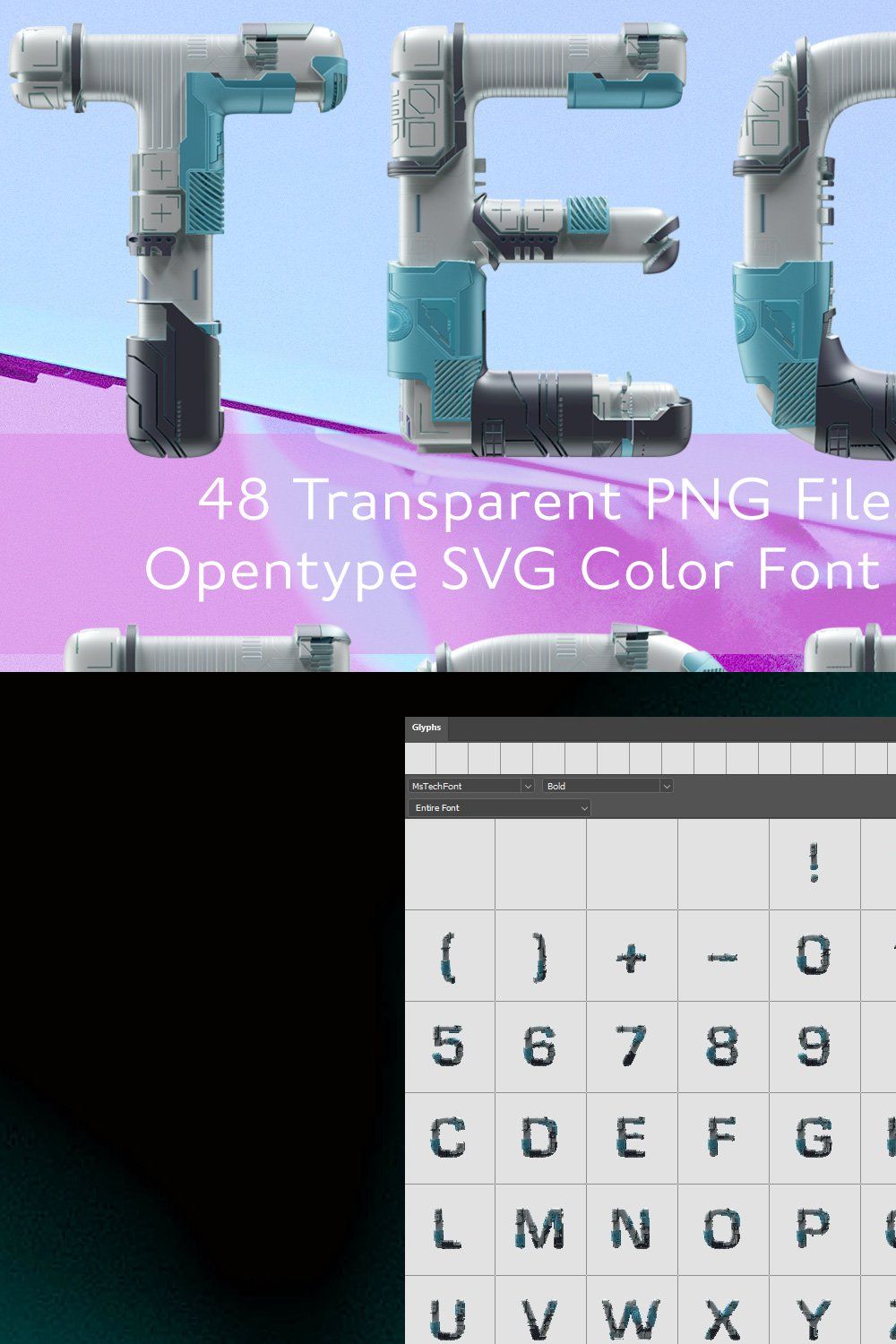
MS Tech Opentype SVG Bitmap-Color Font and PNG Files
Each letter is modelled and rendered in a 3D Application, also converted into an Opentype SVG (Color Font)
Basic western uppercase letters
Numbers
Extended Punctuation and Symbols